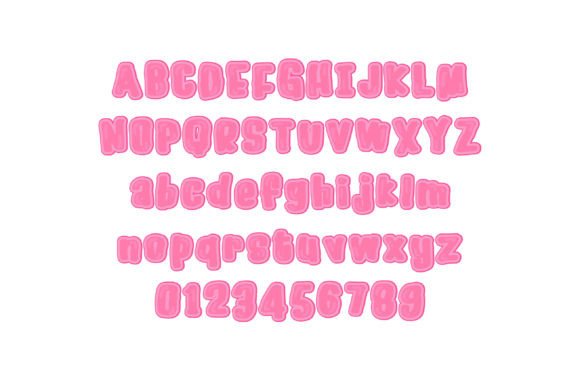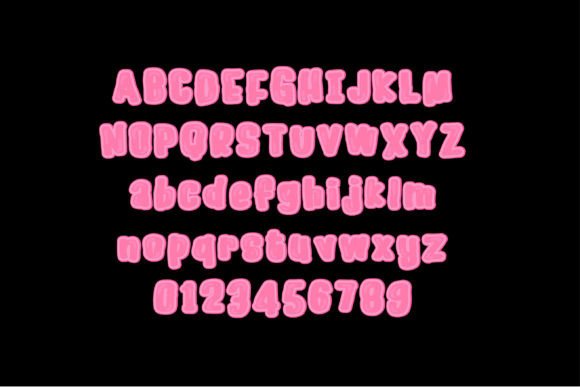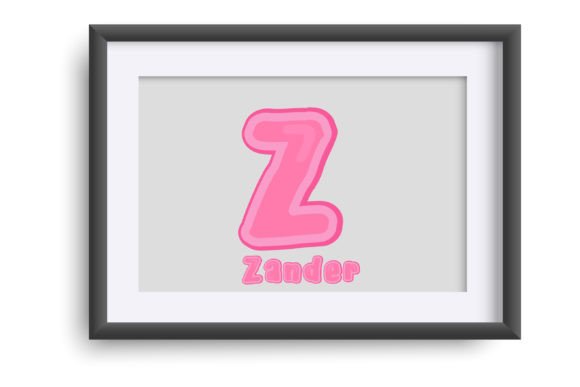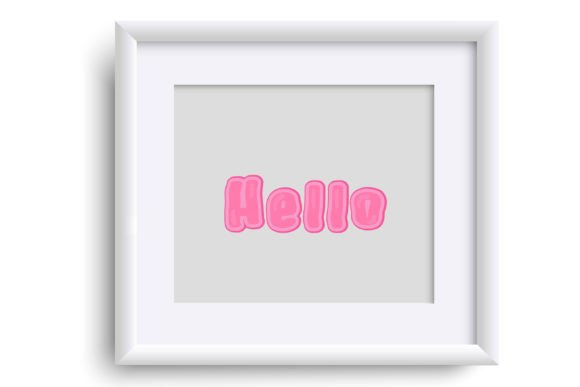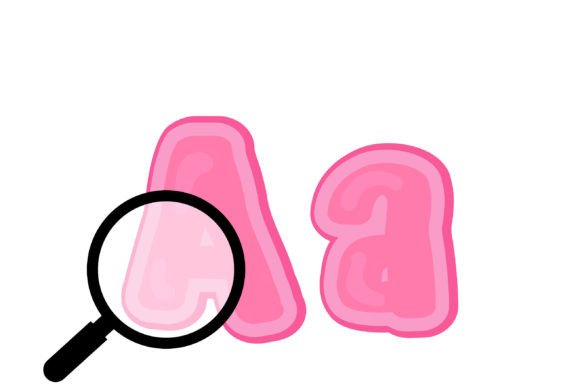
The Sweet Taste of Creativity
Who hasn’t been inspired by the vibrant colors and playful vibes of bubblegum? It’s a treat that brings back memories of childhood and carefree days. And what if I told you that you can capture that same essence in your designs with a font that’s as sweet as it is versatile?
Meet the Bubblegum Font, a full-color font that’s sure to add a pop of fun to any project. This font is perfect for designers who want to add a personal touch to their work without sacrificing quality. Whether you’re creating graphics for a kids’ magazine, designing a logo for a candy store, or simply looking for a fun font to use in your next social media post, the Bubblegum Font is a great choice.
Bubblegum Font Key Features
- Font Family: Bubblegum Font is a unique display font with a playful, whimsical feel.
- Unique Characteristics: Features a distinctive, bubbly design with rounded edges and a fun, childlike feel.
Bubblegum Font Review
As a designer, I recently had the chance to work with the Bubblegum font, and here’s my honest review.
- Unique and playful character: The Bubblegum font has a fun, bubbly personality that’s perfect for creating attention-grabbing headlines and titles.
- Cursive and script options: The font comes with both cursive and script options, which add a lot of flexibility to its use cases.
- Legibility: Despite its playful nature, the font is surprisingly legible, making it a great choice for body text.
- Limited font weights: The font only comes in a few weights, which might limit its use in certain situations.
- No italic or oblique options: While the script options are nice, the lack of italic or oblique variations might be a drawback for some designers.
The Bubblegum font is a fun and versatile choice for designers looking to add some personality to their work. While it has its limitations, its unique character and flexibility make it a great option for a wide range of projects.
The Bubblegum Font is ideal for creating playful, whimsical designs. Use it for titles, headings, and short paragraphs of text. It’s also great for creating social media graphics, flyers, and other marketing materials. To get the most out of the font, experiment with different font sizes, colors, and styles to create a unique look.